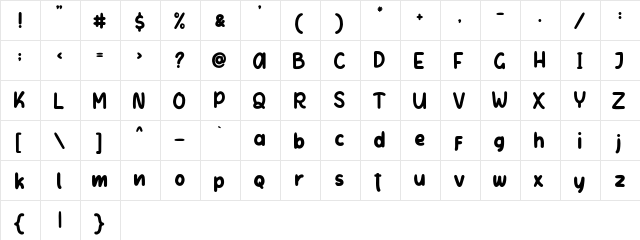
Letter Kids Regular
Design Context for Letter Kids Typeface
Letter Kids has an approachable, lighthearted character — its loose, expressive forms are well-suited to children's content, casual branding, and fun-first design.
Great for children's books, toy packaging, family event branding, and casual consumer-facing design.
Font Pairing: Pairs well with a rounded or humanist sans for body copy, maintaining the friendly tone without relying on Letter Kids to carry extended reading.
Pro Tip: Avoid using Letter Kids for long passages of text — it works best for headlines, labels, and short calls to action.